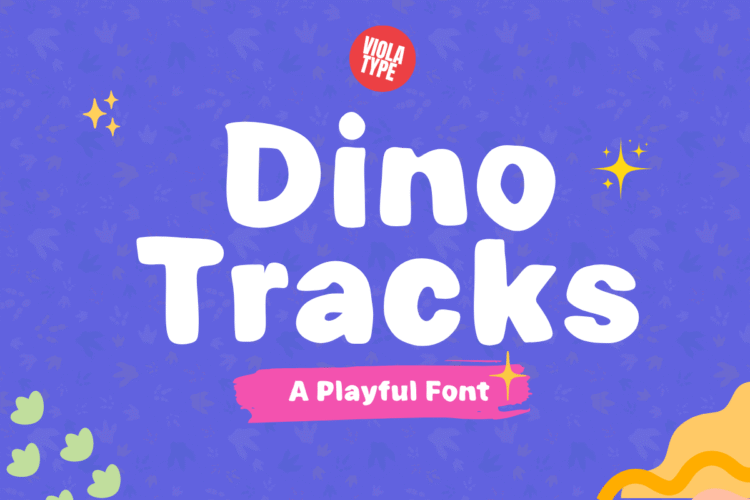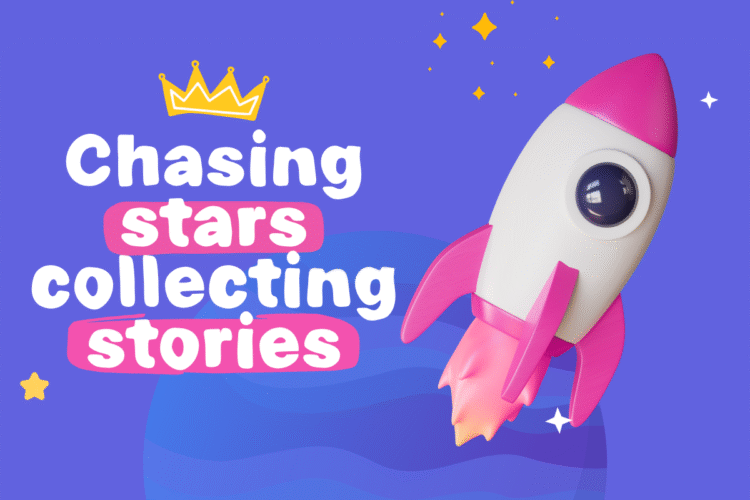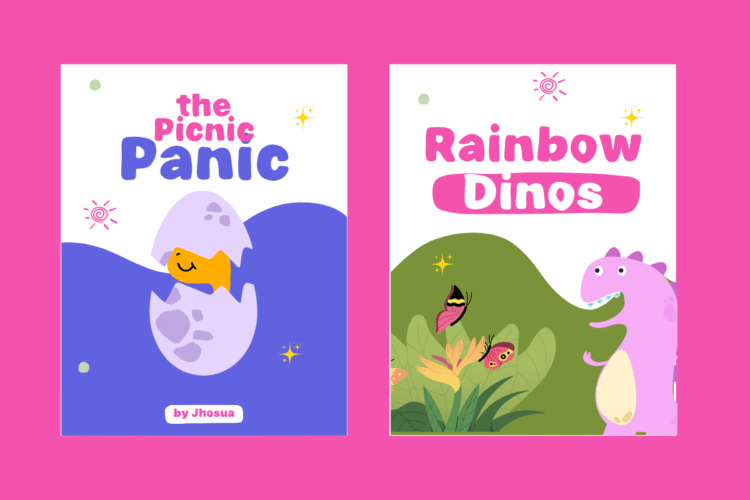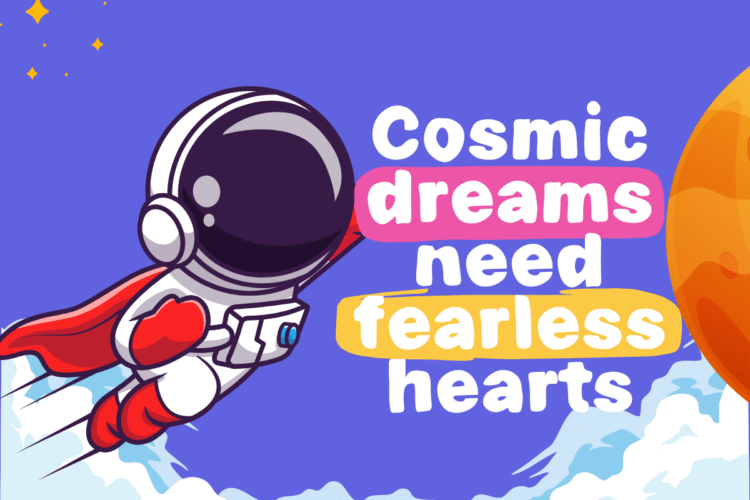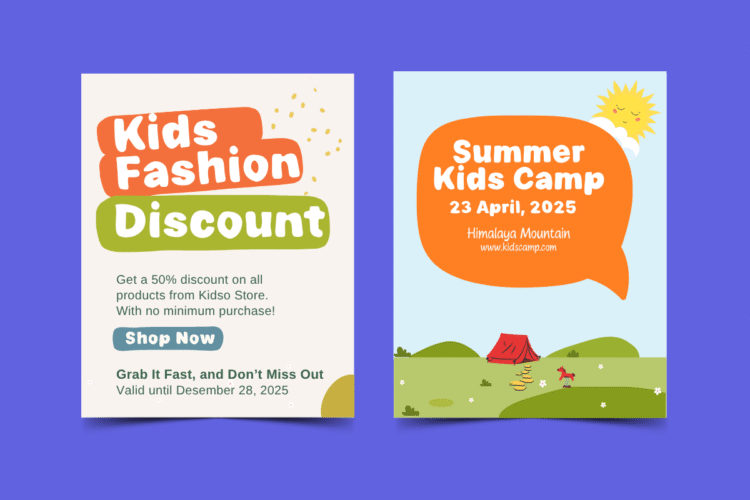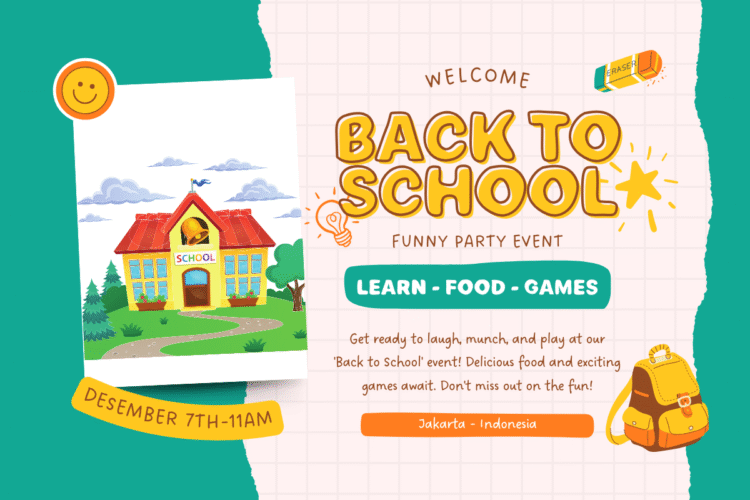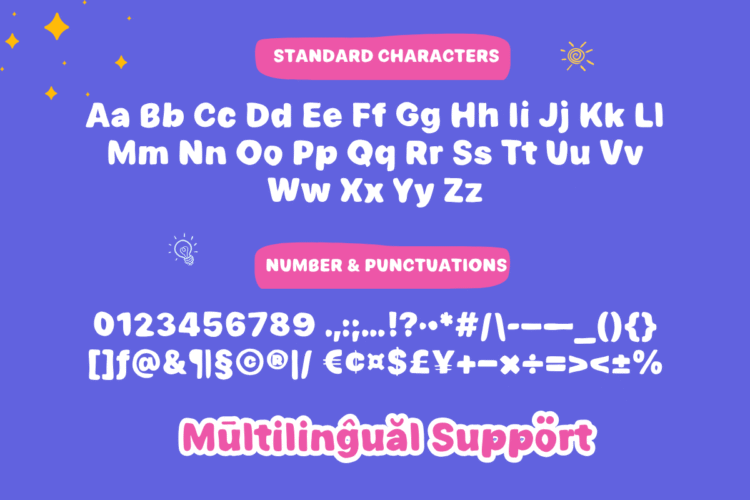
Say hello to Dino Tracks, a cheerful and playful handwritten font designed to bring joy, energy, and a touch of adventure to your creative work! Inspired by the fun and curiosity of childhood, just like little dinosaur footprints across a page this font features bold, rounded letters that feel warm, approachable, and full of personality.